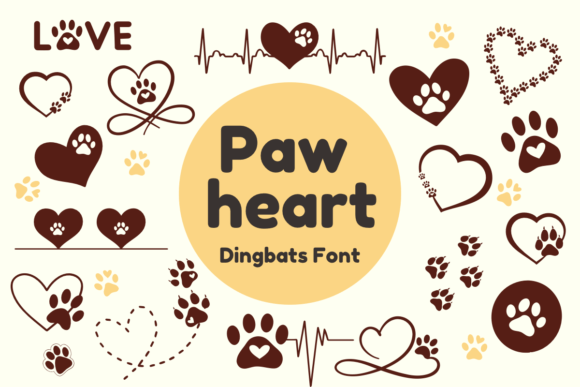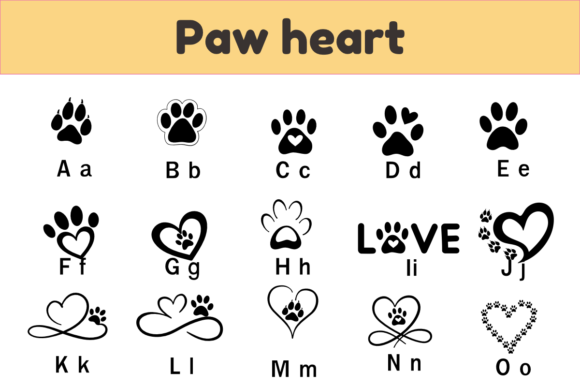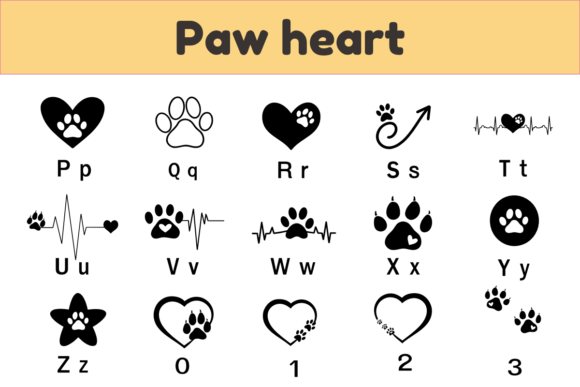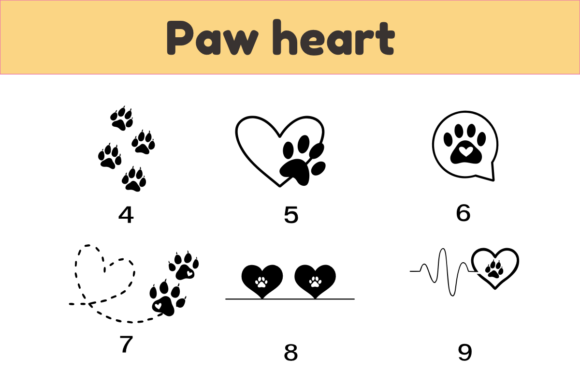
Paw Heart Font
About the Paw Heart Font
Step up your design game with Paw Heart Font, a font that exudes confidence and style. Paw Heart is a fun and cute dingbat font featuring paw prints and heart shapes. It’s perfect for adding a playful touch to your designs, like greeting cards, posters, and pet-related projects. Each character in the font is a unique combination of paws and hearts, making your text look adorable and full of love.
Paw Heart’s playful nature makes it ideal for projects needing a lighthearted and friendly feel, such as children’s books, pet-related branding, or social media graphics. It excels in short bursts of text, such as logos, headlines, and short captions, where its unique character shines. However, avoid using it for large blocks of body text or UI elements; its whimsical design would hinder readability.
For a balanced design, pair Paw Heart with a clean sans-serif like Open Sans for body copy or a classic serif like Garamond for more formal elements. Consider pairing it with a script font like Great Vibes for a handwritten, personalized touch in specific applications. This contrasts the playful shapes of Paw Heart while maintaining a cohesive visual harmony.
The font’s overall personality is undeniably friendly and approachable, with a bold injection of cuteness. Its charm is best utilized in projects focused on themes of love, pets, or childhood, where the visual language enhances the overall mood and message.
Paw Heart Font Usage Examples
Paw Heart Font Example